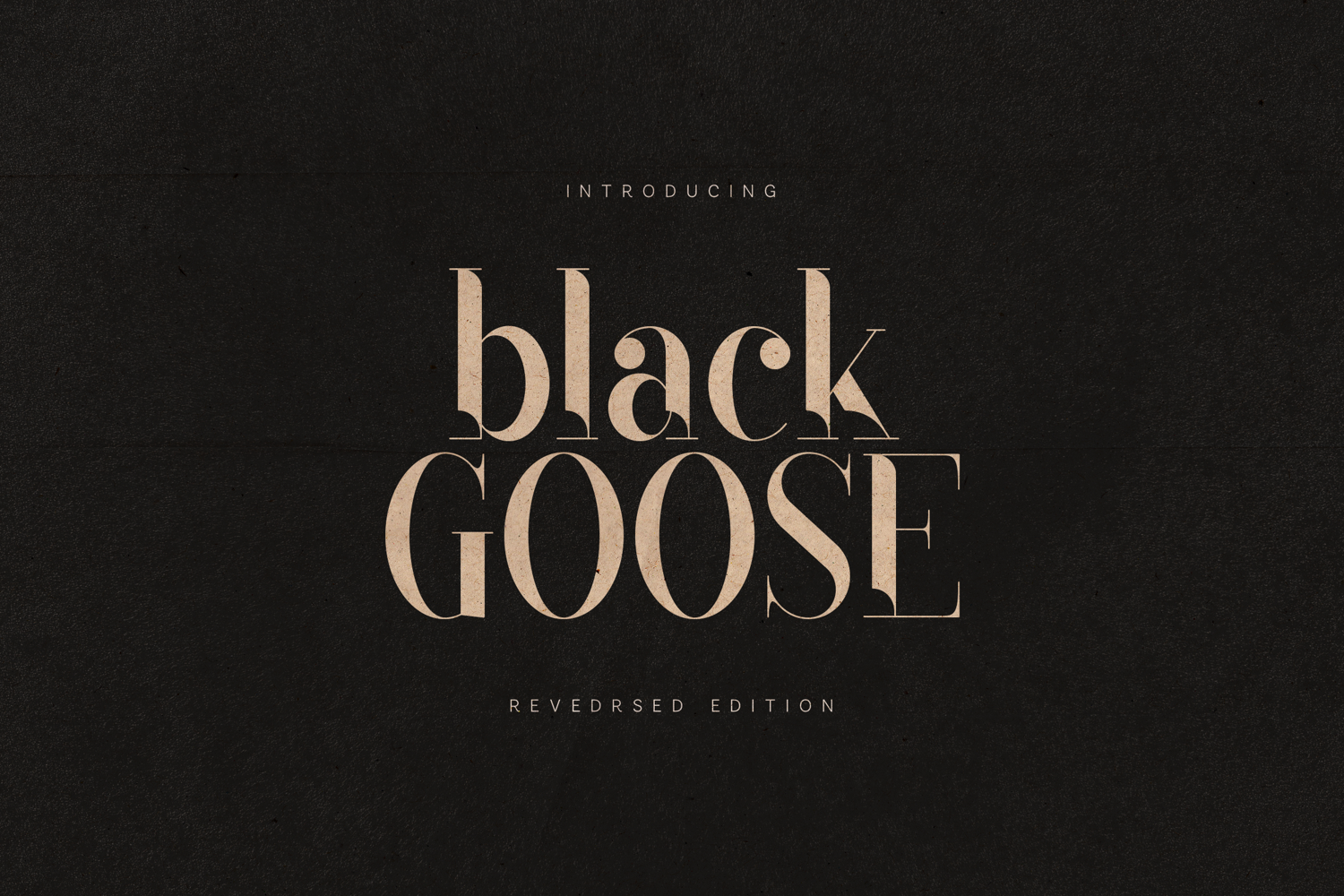
Black Goose Elegant Luxury Serif Font
Black Goose is a refined high-contrast serif font designed for luxury branding, fashion editorials, and sophisticated visual identities.
With sculpted curves, sharp serifs, and elegant contrast transitions, this typeface blends timeless classic typography with modern refinement. The uppercase letters deliver confident presence, while the lowercase characters add softness and rhythm — making it ideal for both headlines and premium body compositions.
Black Goose is built for designers who want elegance without fragility and character without excess.
Perfect For:• Luxury branding
• Fashion campaigns
• Editorial layouts
• Magazine design
• Beauty packaging
• Wedding invitations
• Logo design
• Premium social media graphics
Performs beautifully in large-scale typography and refined branding compositions.